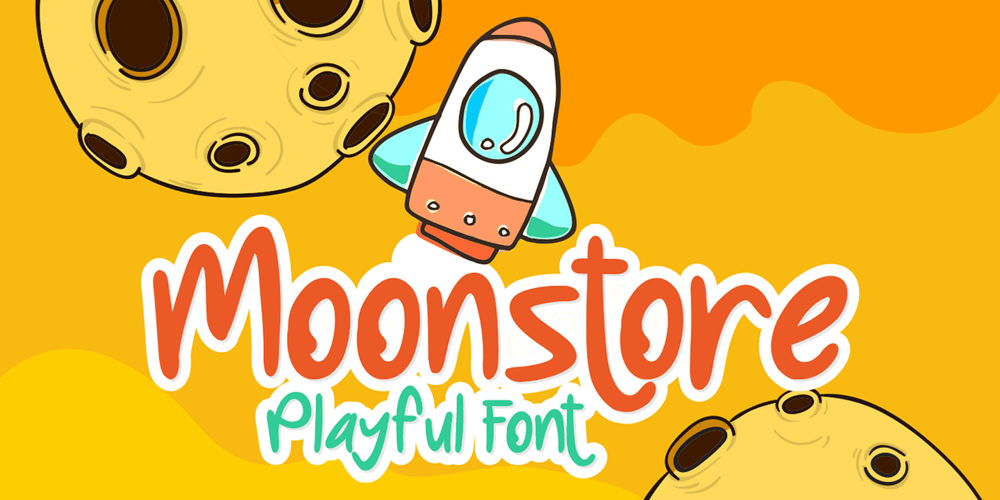
Moonstore Font Family was designed by Raditya Putra Pratama and published by Raditya Type. Moonstore contains 1 styles and family package options. Moonstone is the definition of fun, uniqueness, and authenticity. This eye-catching font will turn your creative ideas into a standout. It will take your various design projects to the highest level, be it branding, headings, book cover, t-shirt, mug design, logos, labels, and much more!